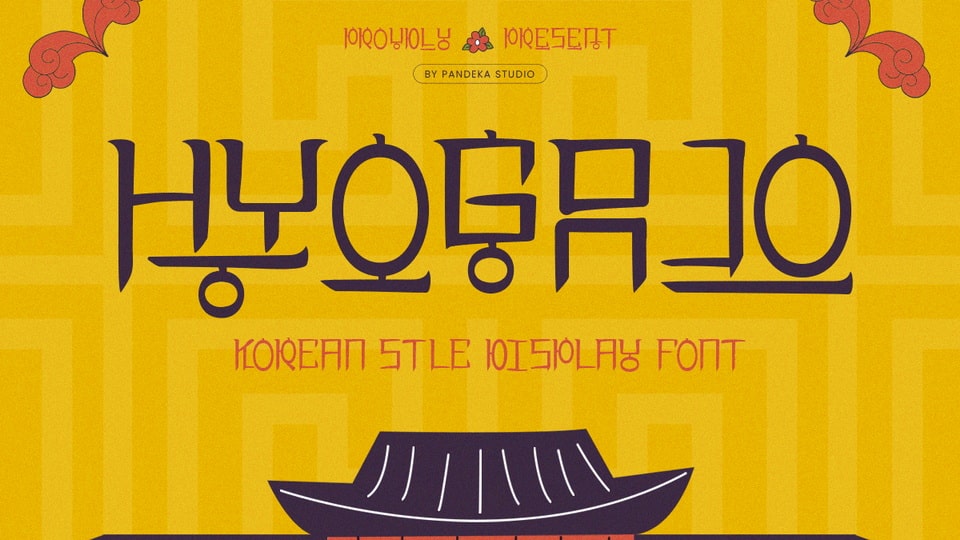
Download Hyogajo font, a hand drawn typeface that combines bold typography with contemporary Korean aesthetics, making it ideal for branding, editorial designs, cultural projects, and modern advertisements.